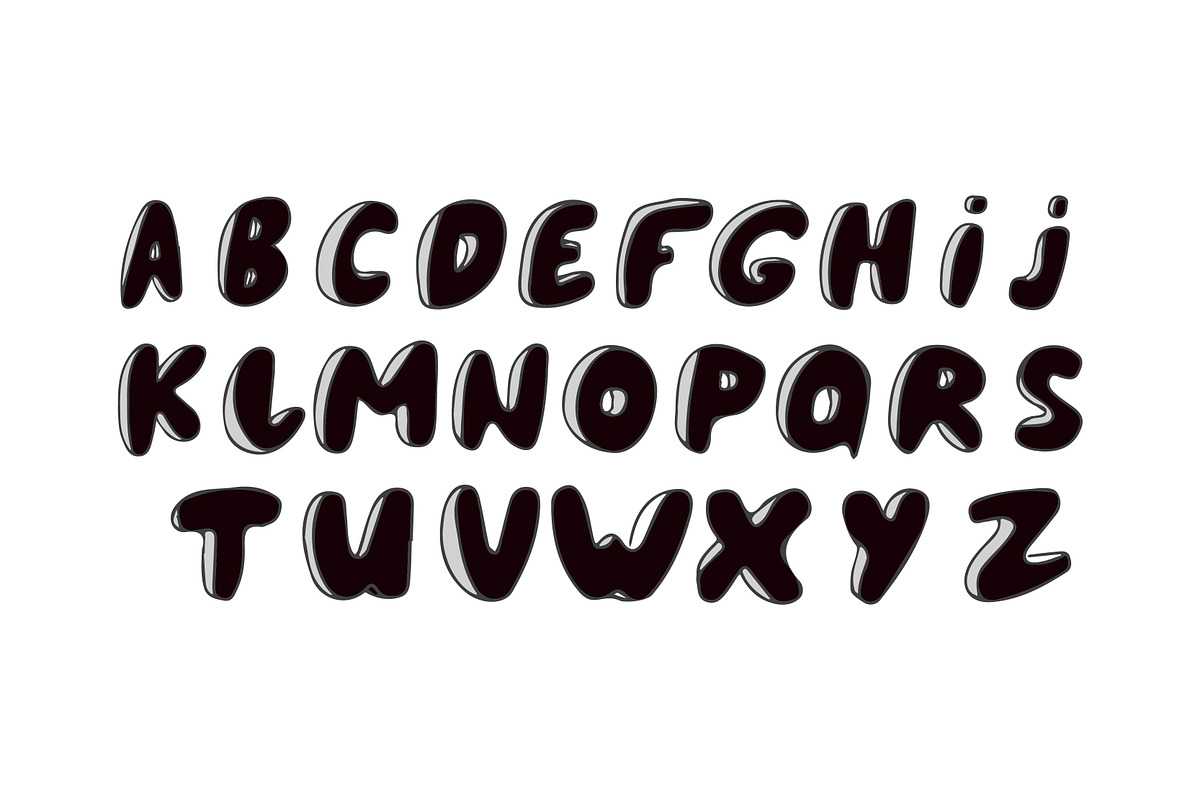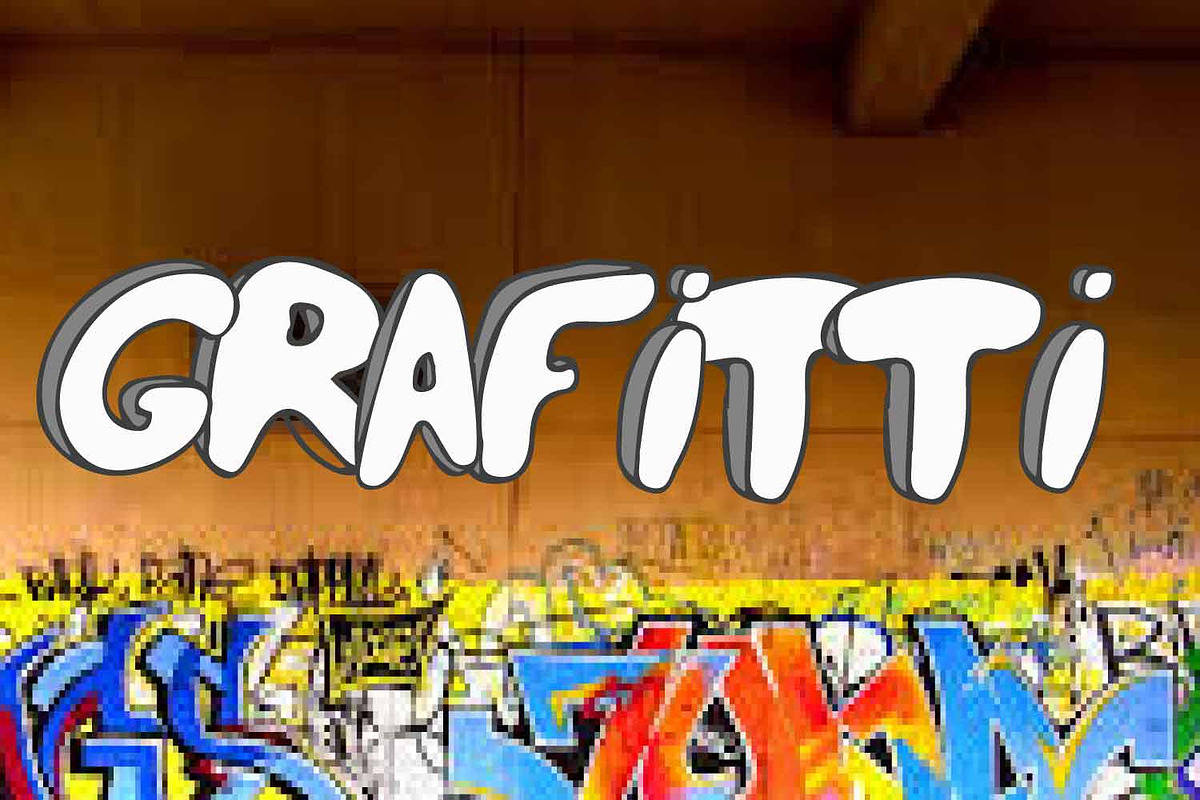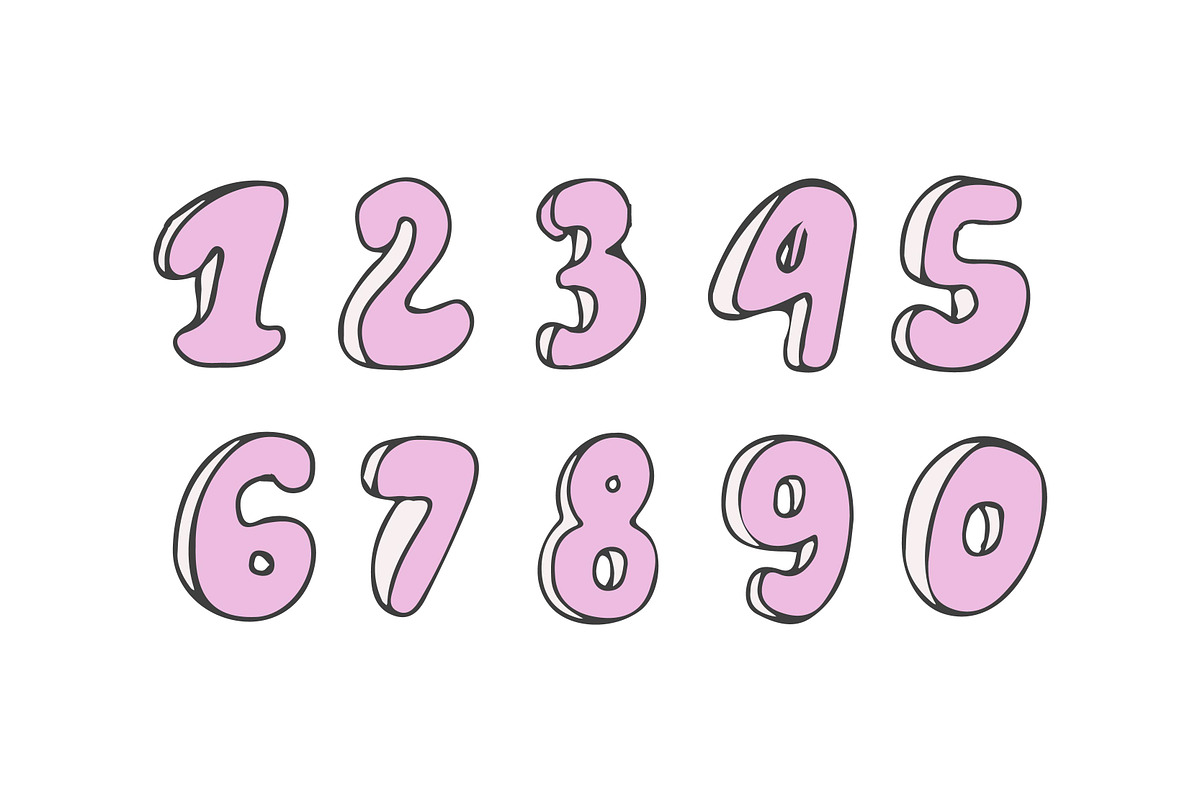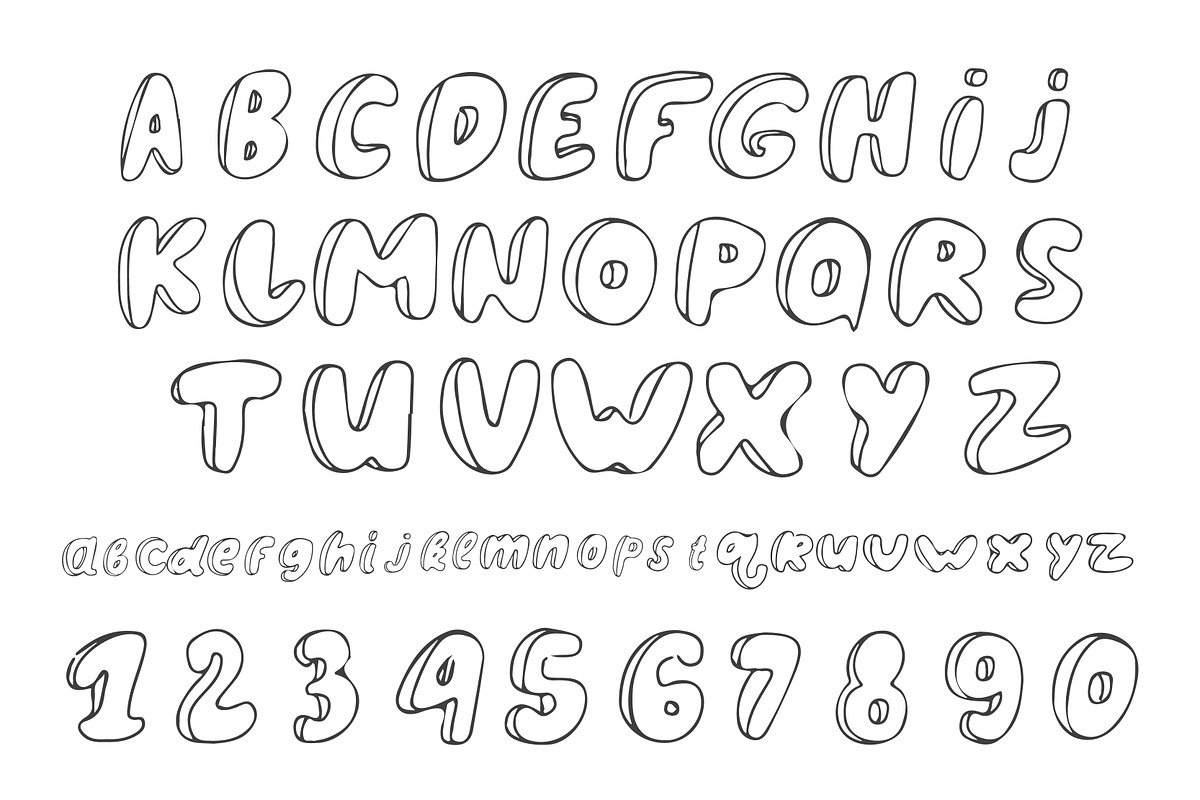
Grafitti Font
Hand drawn grafitti font.
Why Grafitti Font is worth a look
Grafitti Font by Veronika M fits naturally into Branding, posters, packaging, typography.